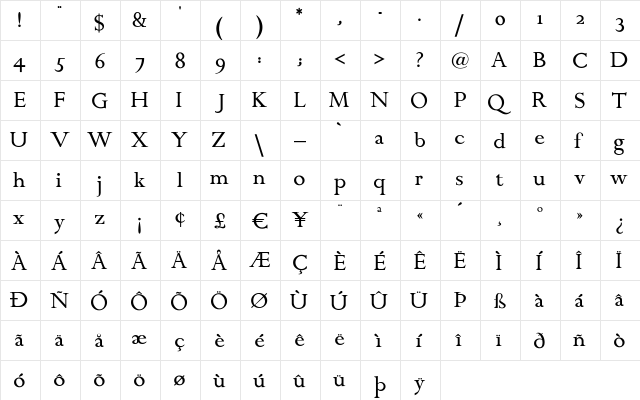
ChanticleerRoman Regular
Design Context for ChanticleerRoman Typeface
ChanticleerRoman takes a measured approach to typography — its balanced proportions and neutral character make it a reliable workhorse for both digital and print work.